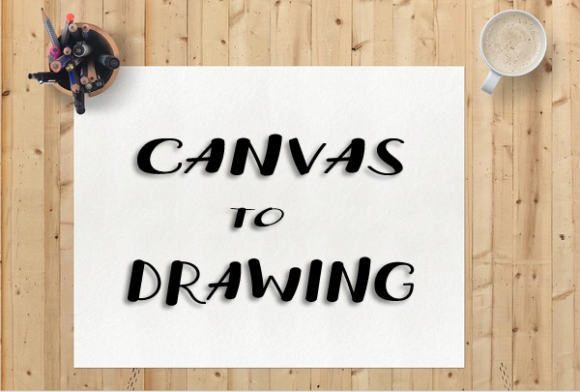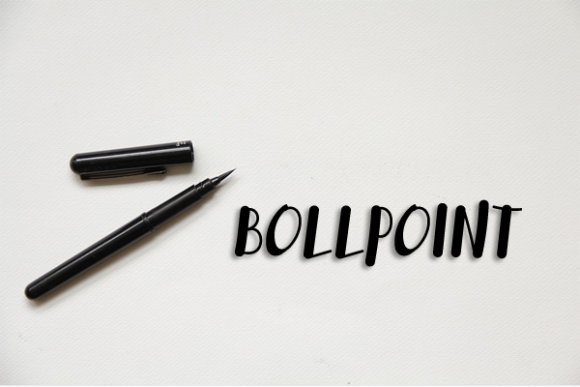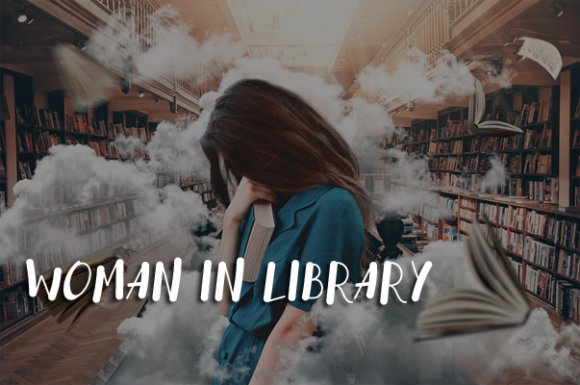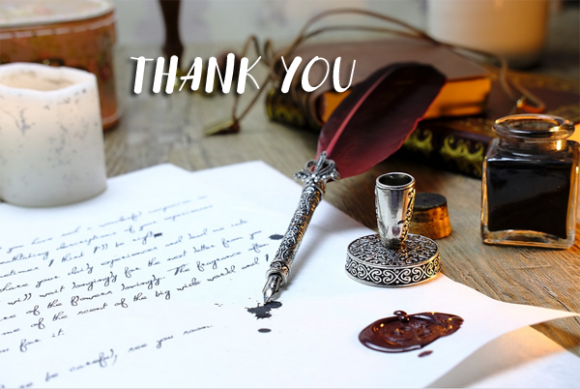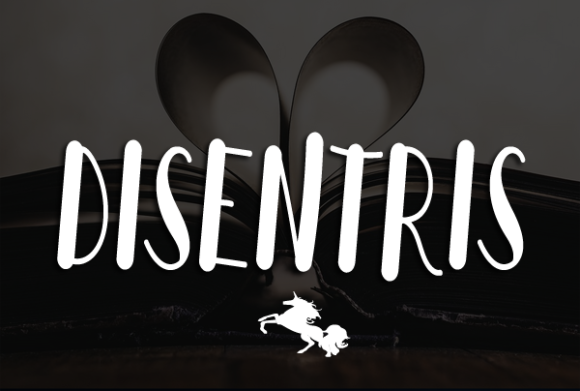
Introducing Disentris Font: The Ultimate Casual and Friendly Handwritten Font
Are you tired of using the same old fonts for your designs? Look no further! Disentris Font is here to revolutionize the way you create. This casual and friendly handwritten font is perfect for designers and crafters who want to add a personal touch to their work. With its natural and unique style, Disentris Font is incredibly versatile and can be used for a wide range of designs.
The Characteristics of Disentris Font
Disentris Font is a handwritten font that exudes warmth and friendliness. Its casual style makes it perfect for designs that require a personal and approachable feel. The font’s unique characteristics include:
- Natural and fluid strokes: Disentris Font has a natural, handwritten feel that makes it look like it was written with a pen or pencil.
- Unique letterforms: Each letter in the Disentris Font has its own unique style, making it stand out from other fonts.
- High legibility: Despite its casual style, Disentris Font is highly legible, making it perfect for body text and headings.
The Benefits of Using Disentris Font
So, why should you use Disentris Font for your designs? Here are just a few benefits:
- Versatility: Disentris Font can be used for a wide range of designs, from social media graphics to branding materials, and even digital products.
- Emotional connection: The friendly and casual style of Disentris Font helps create an emotional connection with your audience, making your designs more relatable and engaging.
- Time-saving: With Disentris Font, you can create professional-looking designs in no time. Its unique style and high legibility make it easy to use and customize.
How to Use Disentris Font in Your Designs
Using Disentris Font in your designs is easy! Here are a few tips to get you started:
- Pair it with other fonts: Disentris Font pairs well with other fonts, making it easy to create a unique and visually appealing design.
- Experiment with colors: The natural style of Disentris Font makes it easy to use with a wide range of colors and textures.
- Use it for headings and body text: Disentris Font is highly legible, making it perfect for both headings and body text.
Who Can Benefit from Disentris Font?
Disentris Font is perfect for:
- Graphic designers: Whether you’re creating social media graphics, branding materials, or digital products, Disentris Font is a great addition to your font library.
- Crafters: If you’re a crafter looking to add a personal touch to your products, Disentris Font is a great choice.
- Small business owners: Disentris Font can help small business owners create a unique and professional brand identity.
In conclusion, Disentris Font is a versatile and friendly handwritten font that’s perfect for designers and crafters who want to add a personal touch to their work. With its natural and unique style, Disentris Font can be used for a wide range of designs. Whether you’re creating social media graphics, branding materials, or digital products, Disentris Font is a great choice. So why wait? Give Disentris Font a try today and see the difference it can make in your designs!
The only limit is your imagination! With Disentris Font, the possibilities are endless. Get creative and have fun with this amazing font!